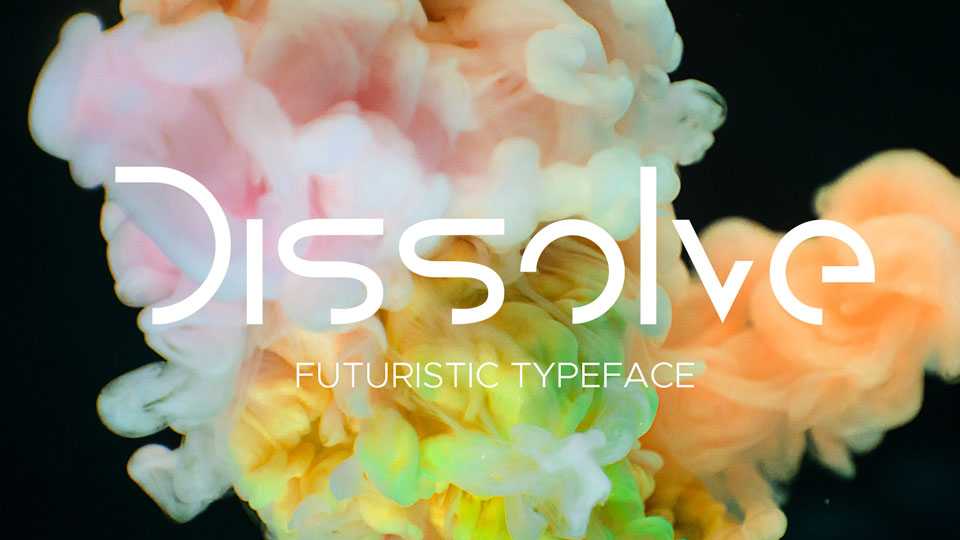
Download Disolve font, a futuristic sci-fi style typeface in Light and Regular weights. Disolve font perfectly suits for creative designs and art, posters, logos, headlines and more.
Designer: Freddie Line